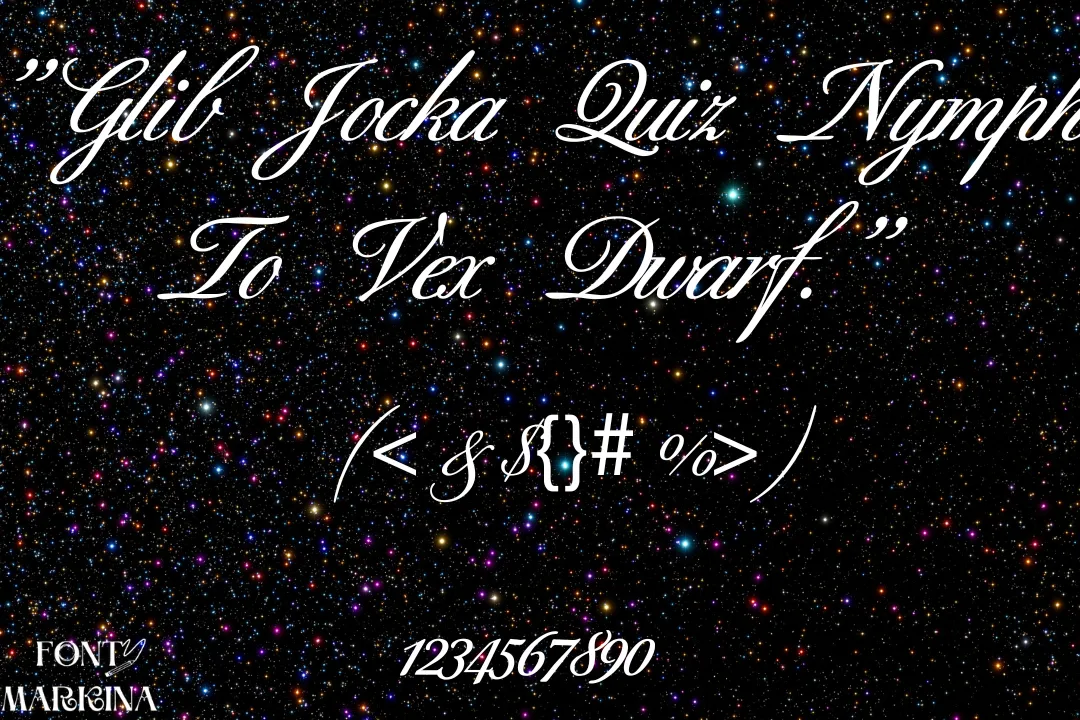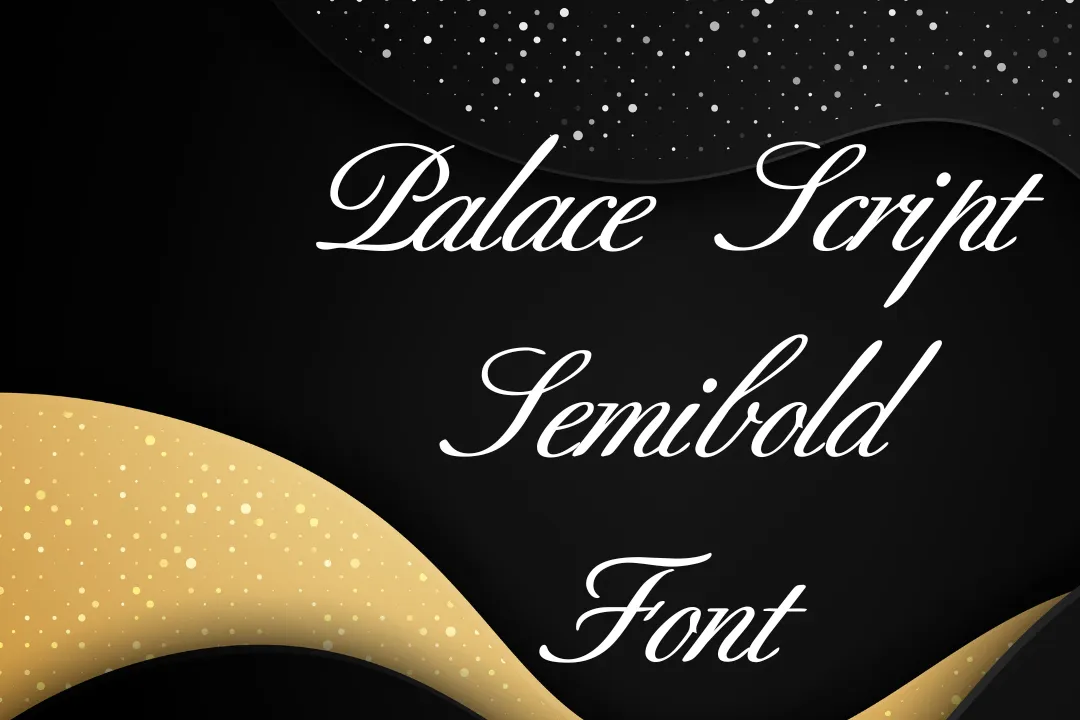
Introducing Palace Script Semibold Font which is very popular in the design market. Monotype is an independent foundry that manufactured this font family. This typeface has different characters. The wide space between all its characters makes it more reliable.
This family plays a great role in your designs. Mona Handdrawn font is similar to this family and has the same styles and characters. Palace Script Semibold typeface has many special styles. Some famous styles are Bold, Semi-bold, regular, and so on.
Uses of Palace Script Semibold Font
In such a fast-paced world, the use of this stylish typeface is increasing. It is very impressive among all designers. In business sectors, this family is used for making daily reports and keeping sensitive records related to different projects.
If you are an expert designer then use this family for making logos for different brands, covers of books, and so on. Different types of photo editing, video editing, art channels, and all video Channels can be made by using this stylish font family.
All graphic designers know about the worth of this family and used it for infographics, game development, and many other tasks. Moreover, this classic typeface is used for emblems, thumbnails, social media posts, magazines, and much more.
| Name | Palace Script Font |
| Designer | Monotype Foundry |
| Type | Script |
What type of font is Palace Script Semibold Font?
This marvelous typeface comes from the script font family. It has a wide range of different characters and styles.
Can I use the Palace Script Semibold typeface for my Website designs?
Yes, surely you can use it. If you will use this family for your web designs it will give an attractive look to your website.